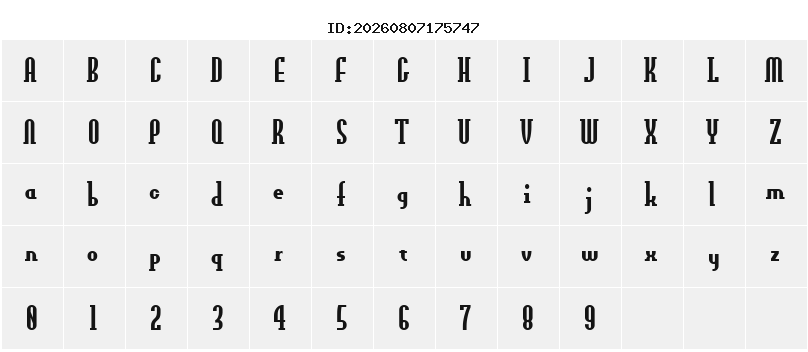
OLDNEW Preview
• Font Name: OLDNEW
• Font Style: Axis
• Font ID: Macromedia Fontographer 4.1J OLDNEW Axis
• Full Font Name: OLDNEW Axis
• Version: Macromedia Fontographer 4.1J 02.5.26
• PostScript Name: OLDNEWAxis
About OLDNEW.ttf
OLDNEW.ttf is a modern, elegant sans-serif font designed for ultimate readability and visual harmony. Perfect for branding, headlines, web design, and print materials.